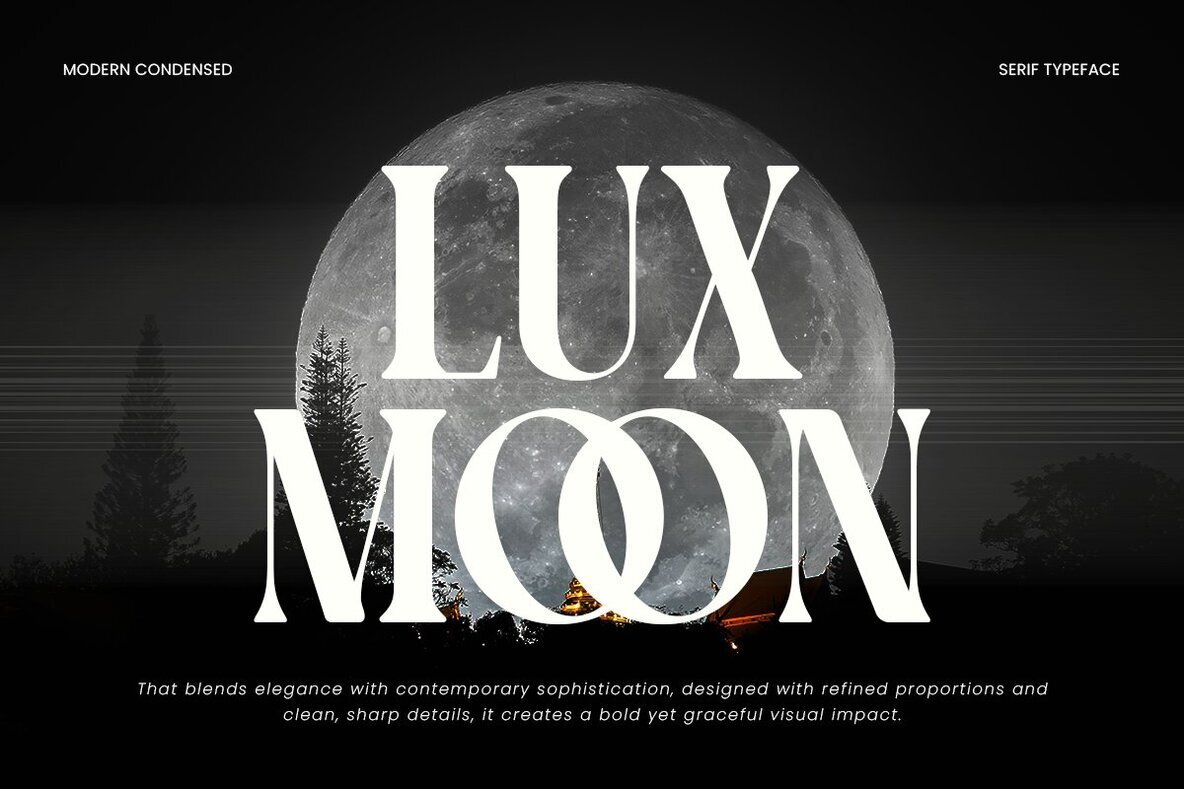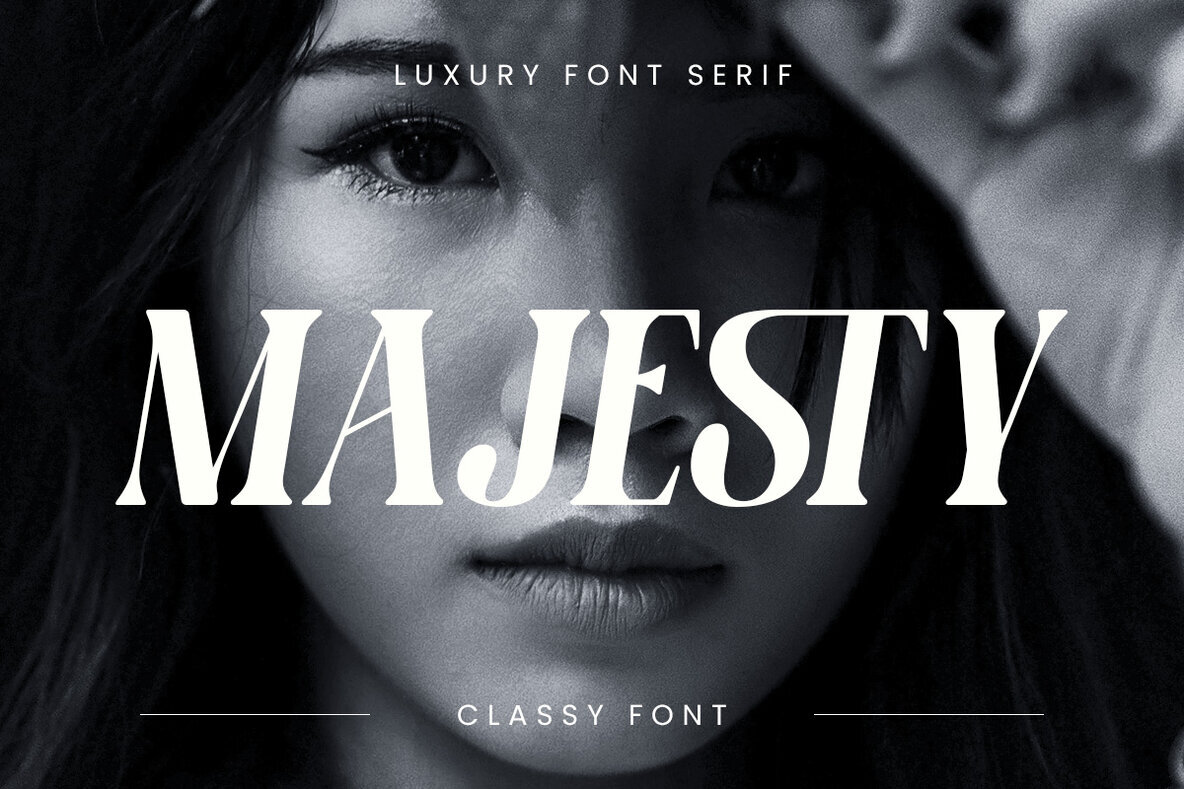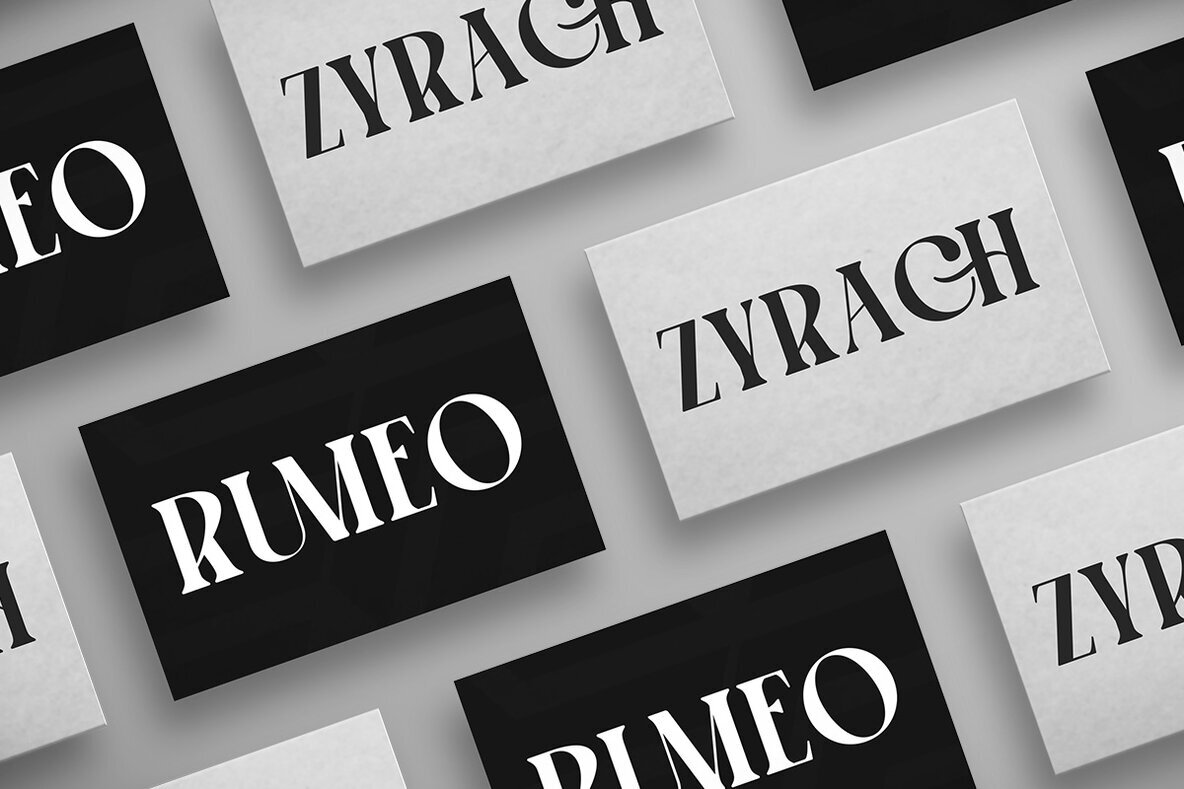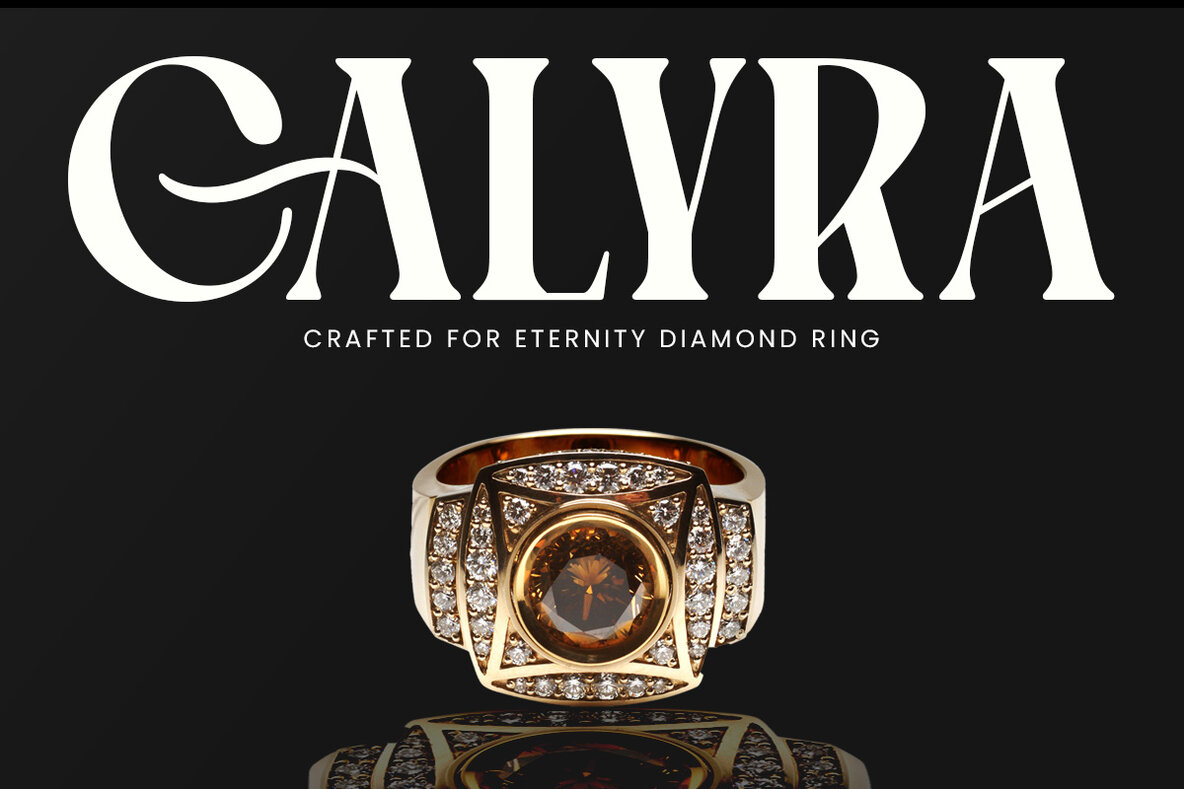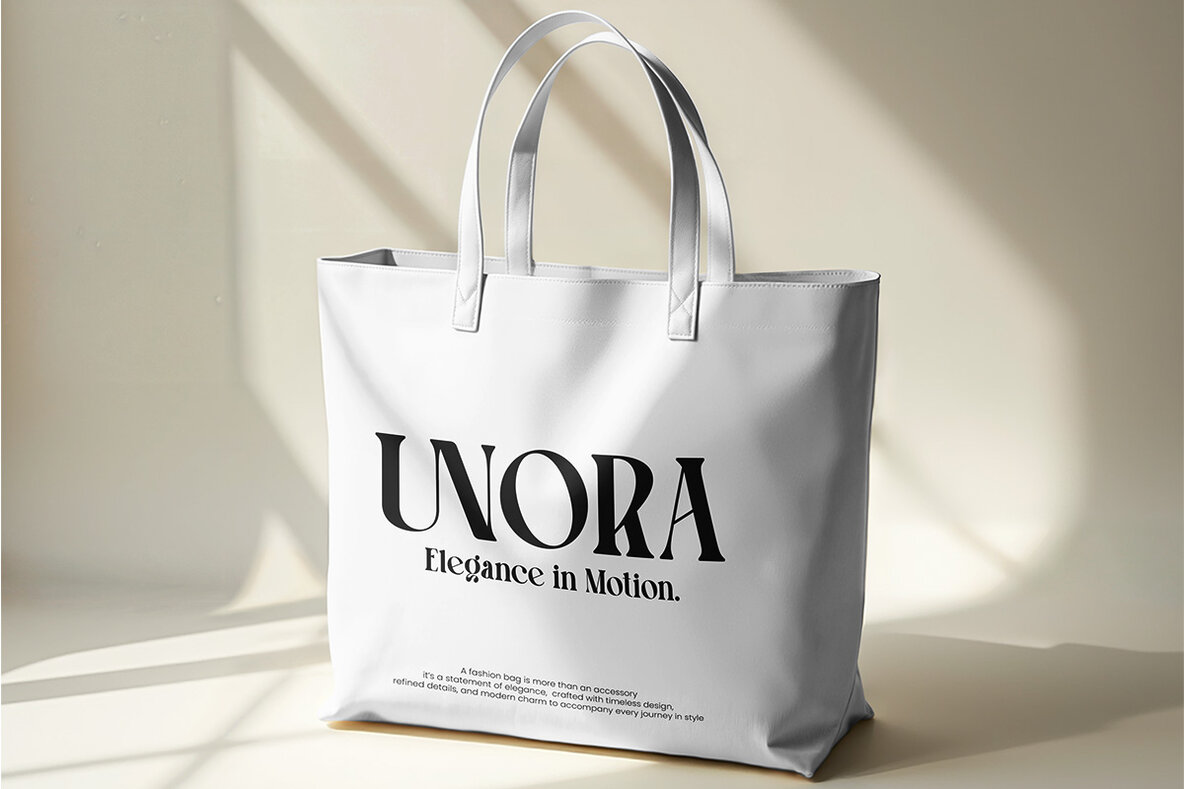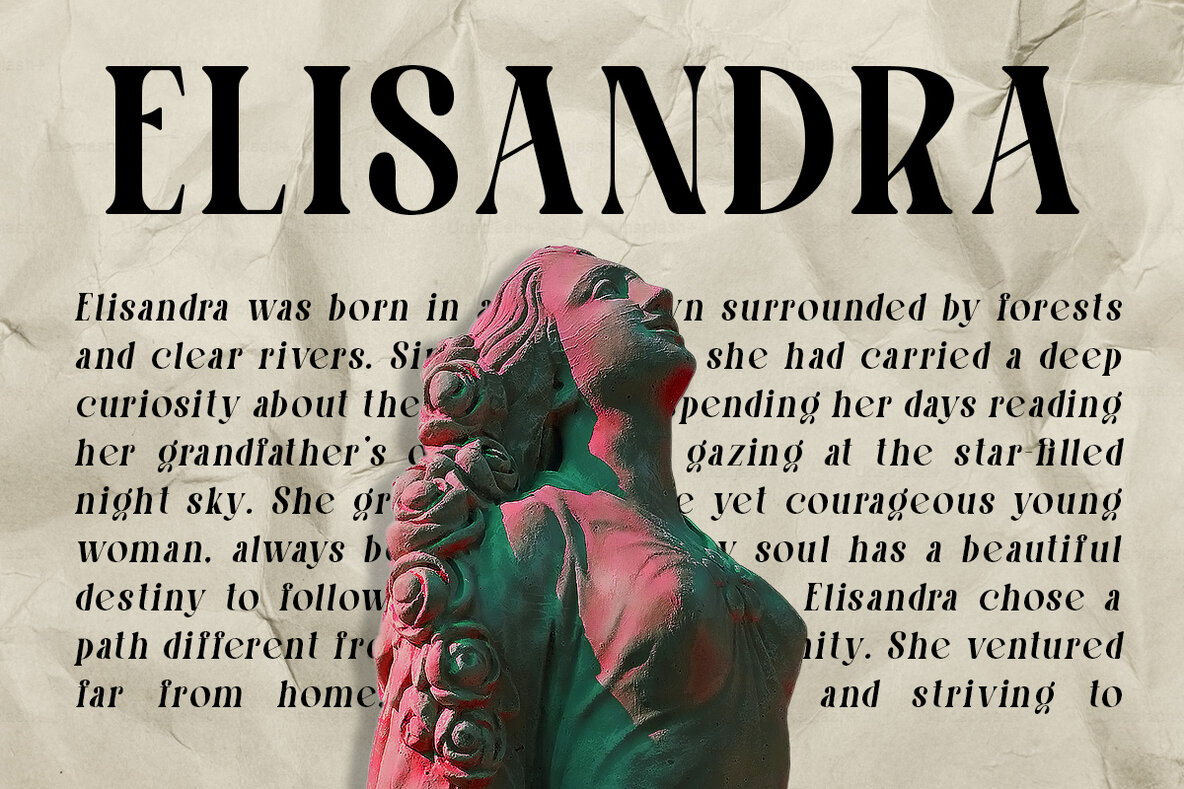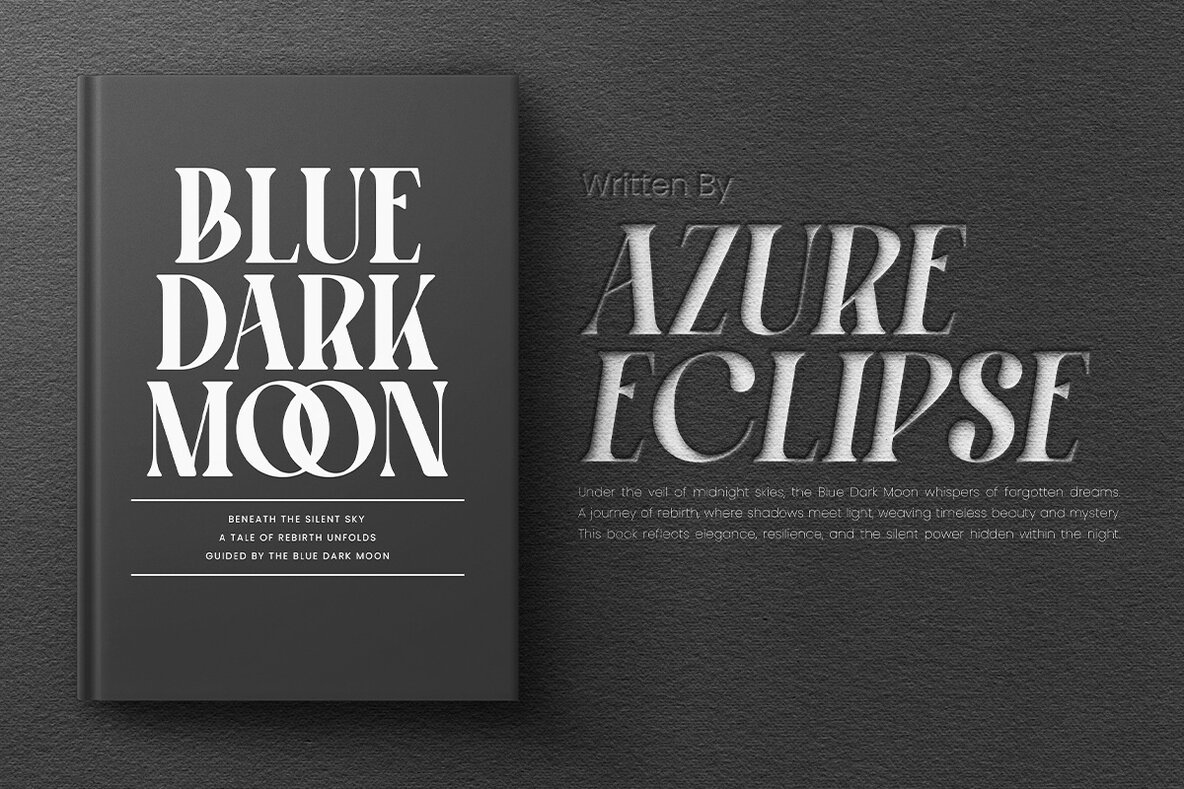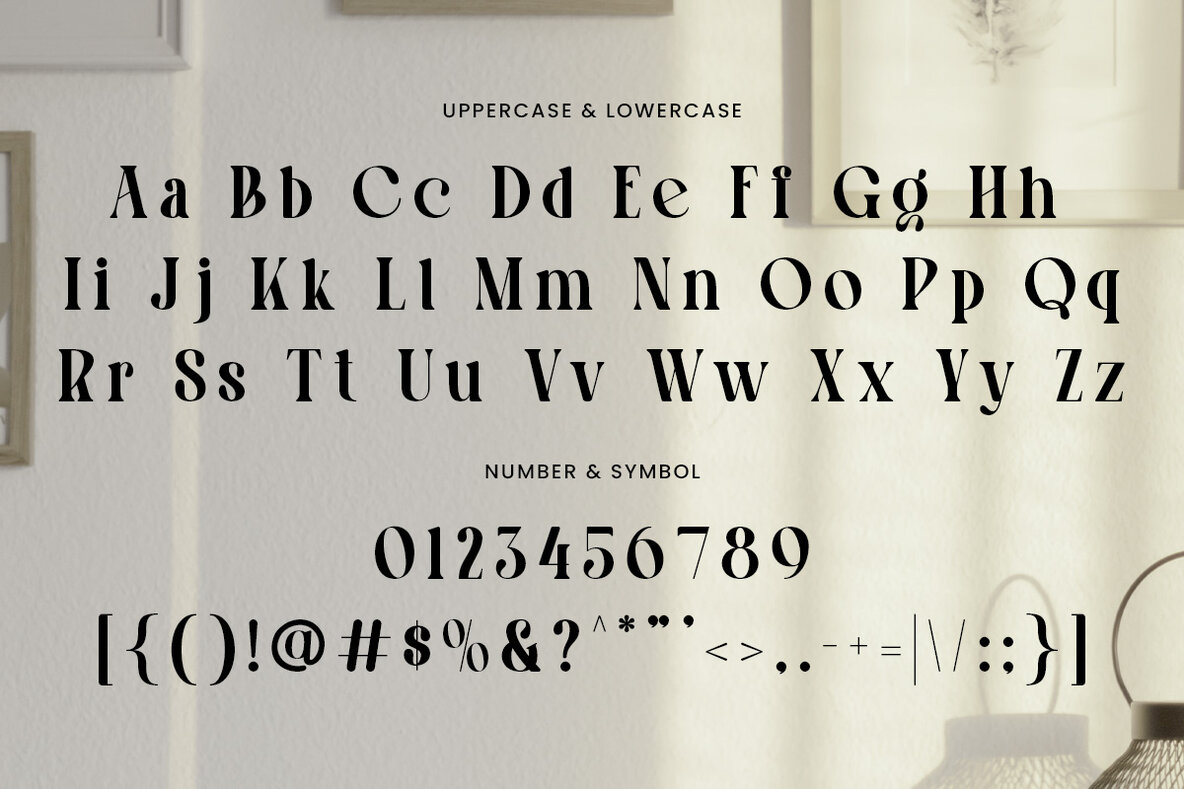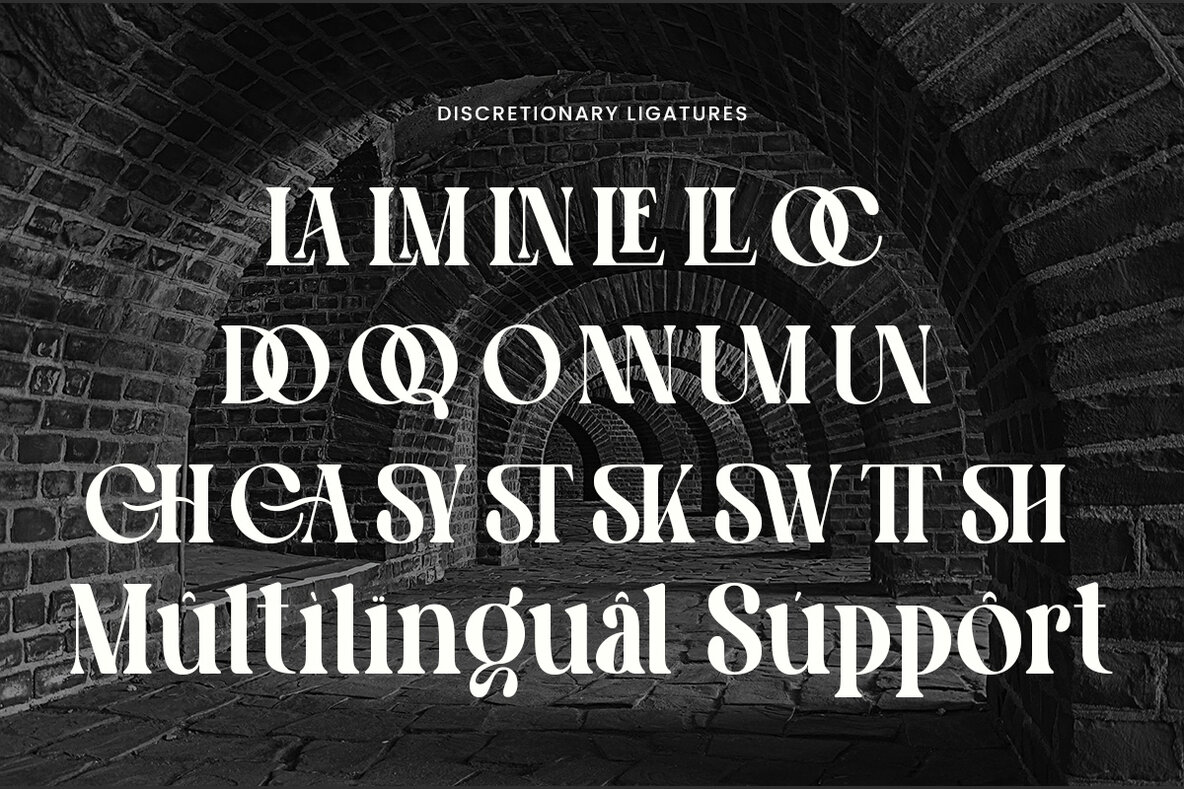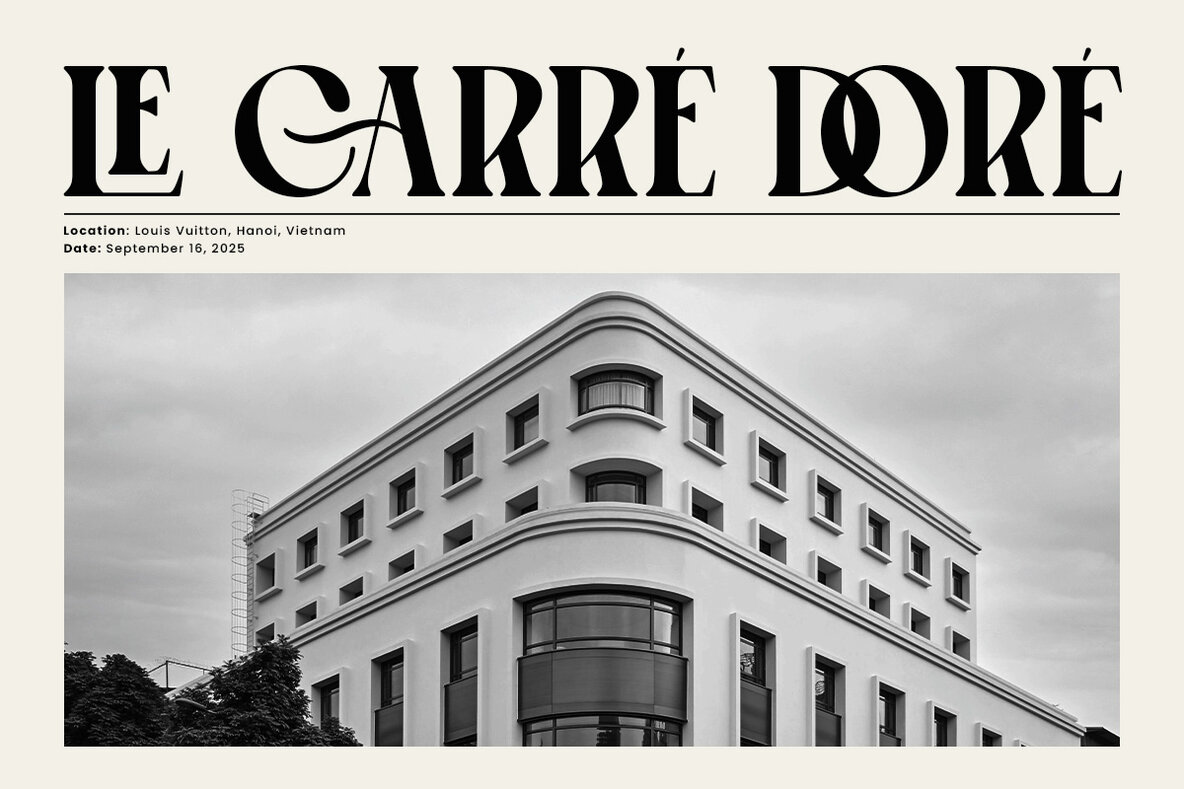
Luxmoon Font
Experience the perfect fusion of elegance and contemporary style with Luxmoon, a modern condensed serif font. Crafted with refined proportions and balanced kerning, its smooth curves and sharp details create a striking visual impact. Ideal for branding, editorial design, logos, social media, packaging, posters, invitations, and even wedding projects, Luxmoon adds a touch of luxury and sophistication to every creative piece.Luxmoon Font